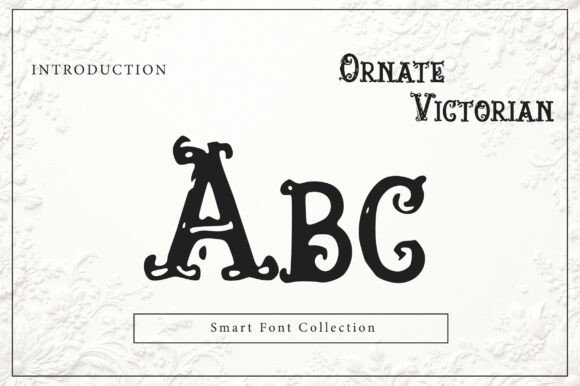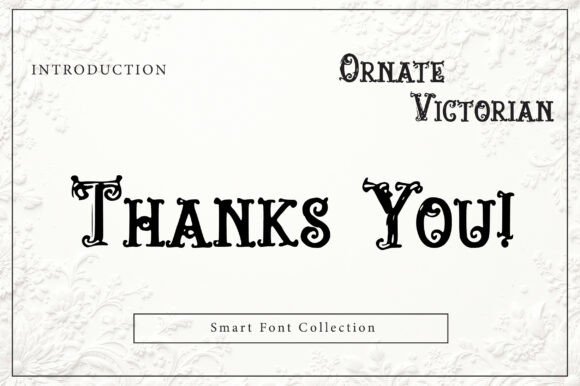
Introduction to Ornate Victorian Font
Have you ever been browsing through a vintage bookstore, and stumbled upon an old, leather-bound book with intricate golden lettering on the cover? The moment you see those ornate fonts, you feel a rush of creativity and a deep connection to the past. That’s the magic of the Ornate Victorian Font – a display typeface that embodies the elegance and drama of 19th-century design.
For designers, the Ornate Victorian Font is a valuable resource that can elevate any creative project. With its high-quality, transparent background, and rich decorative style, it’s the perfect addition to any design. Whether you’re working on a vintage logo, antique branding, or a retro-inspired poster, this font adds a bold and artistic personality that’s sure to grab attention. And the best part? It’s available for free download, making it an accessible design resource for creatives of all levels.
Key Features of Ornate Victorian Font
- Unique, intricate design with ornate details and flourishes, perfect for creative projects and designs.
- High-quality font with transparent background, allowing for seamless integration into any design.
- Perfect for adding a touch of elegance and sophistication to any design, from wedding invitations to packaging and branding materials.
Honest Review: Ornate Victorian Font
I recently had the chance to work with the Ornate Victorian Font, and I must say it’s been a delight. The level of detail in this font is top-notch, making it a great addition to any creative project.
- ✨ High-quality design: The Ornate Victorian Font is a masterpiece of typography, with intricate details that will add a touch of elegance to any project.
- ✨ Versatile: This font can be used for a wide range of designs, from invitations to packaging, and even digital displays.
- ⚠️ Limited transparency: While the font itself is high-quality, it doesn’t support transparent backgrounds, which can be a bit of a letdown for designers who like to get creative with layering.
- ⚠️ Limited customization: While the font is beautiful, it’s not highly customizable, which may limit its use in certain projects.
Overall, the Ornate Victorian Font is a great design resource for anyone looking to add a touch of sophistication to their projects. While it may not be perfect, its high-quality design and free download make it a valuable addition to any designer’s toolkit.
The Ornate Victorian Font is a unique and elegant design resource ideal for creative projects that require a touch of sophistication. This high-quality font features intricate details and ornate elements, making it perfect for adding a luxurious feel to your designs.
To get the most out of the Ornate Victorian Font, use it on a transparent background to create a sense of depth and sophistication. Experiment with different font sizes and colors to achieve the perfect look for your design.
The Ornate Victorian Font is perfect for:
- Luxury product packaging and branding
- Formal event graphics and posters
The Ornate Victorian Font is a versatile design resource that can be combined with other design elements to create a unique and visually appealing design. You can pair it with other fonts, graphics, and images to create a distinctive look that suits your creative project. With its ornate and elegant style, the Ornate Victorian Font is an excellent choice for designers looking to add a touch of sophistication to their designs.